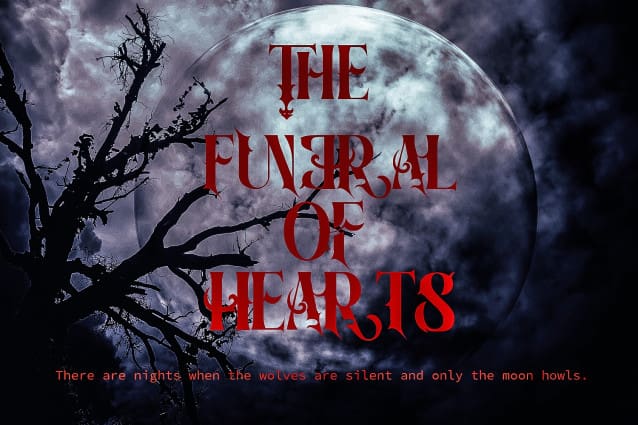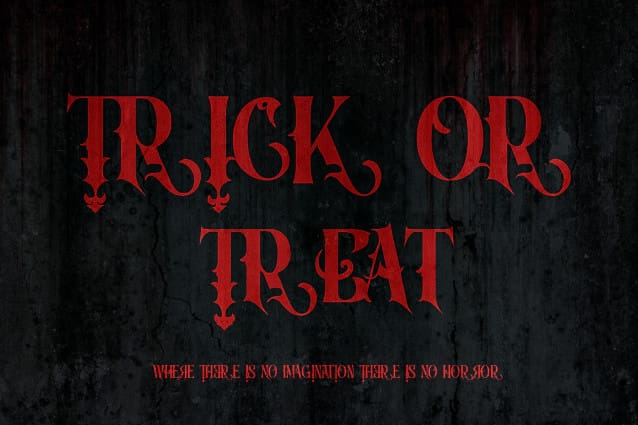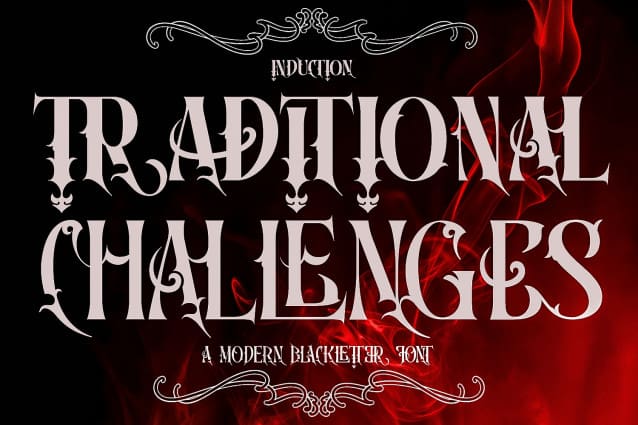
Traditional Challenges Font is an unique font with a vintage, Victorian feel with lots of decorative elements. An incredibly authentic and daring blackletter font. Add this font to your favorite creative ideas and notice how it makes them stand out! OpenType features support stylistic alternate characters to give a unique personality to the typography composition. Suitable for display needs such as signage, poster, logo, label, headline, cover design, etc.
Traditional Challenges was built with OpenType features and includes 100 ligatures, alternate, numbers, punctuation, and it also supports other languages.
AC AD AL AN AR AS AT AU AV BE CA CE CH CO CT DE DI EA EC ED EE EL EM EN EP ER ES ET FE FO FR GE HA HE HI HO IE IC IL IN IO IR IS IT JU KE LA LE LI LL LO LY MA ME MI NC ND NE NG NO NT NS OC OF OM ON OO OP OR OT OU OW PA PR RA RD RE RI RO RS RT SE SH SI SO SS ST TA TE TH TI TO TR TT UM UN UR VE WI WO